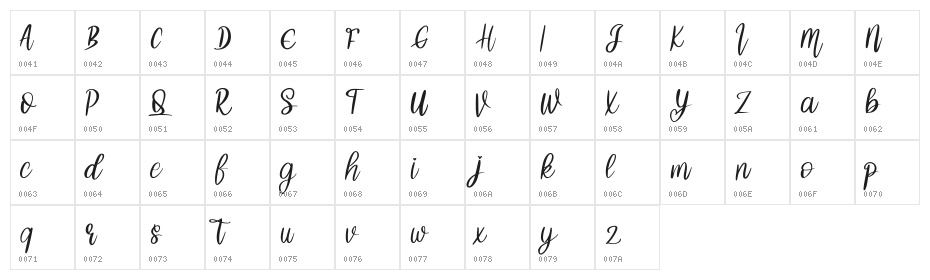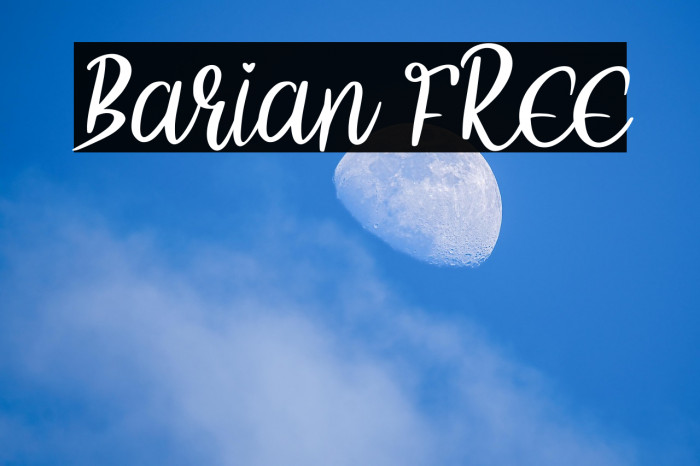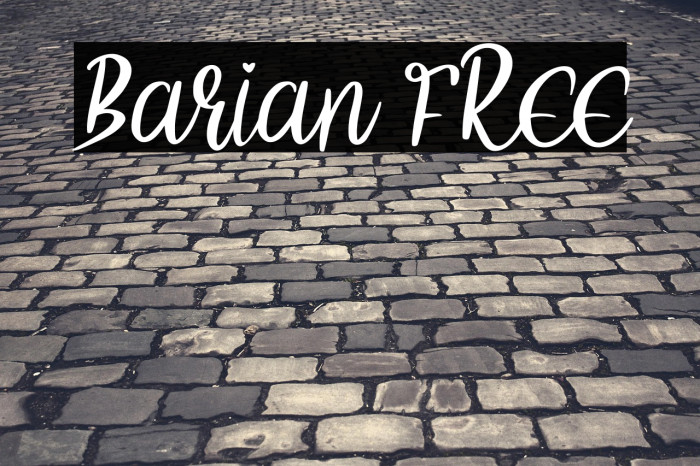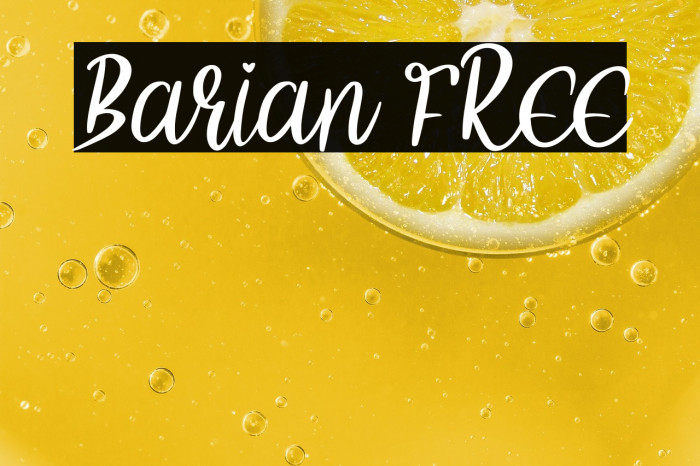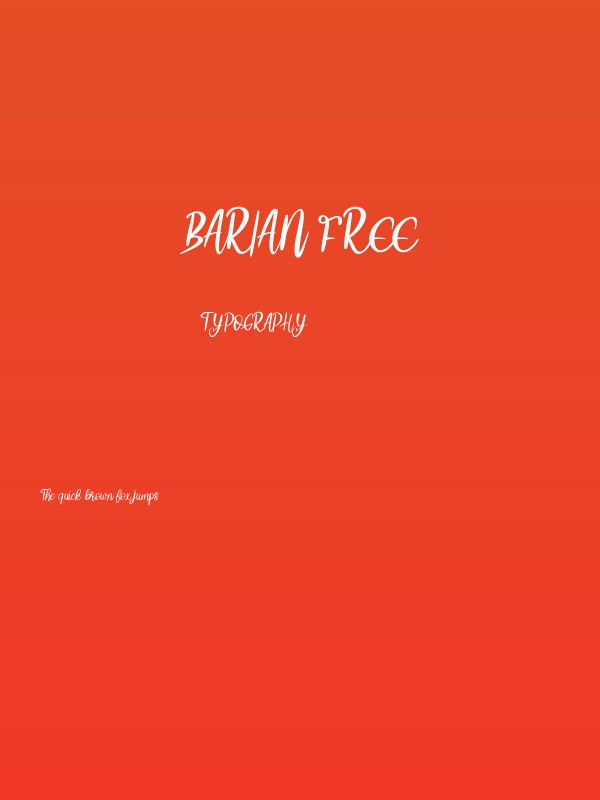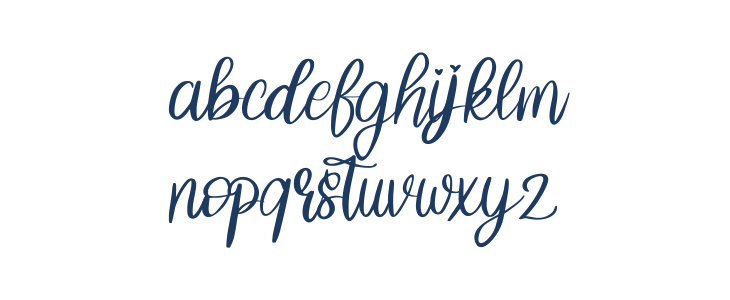
Barian FREE Font
Barian FREE Description
This font features a dynamic and flowing script style, characterized by its elegant and cursive letterforms. The uppercase letters are bold and expressive, with sweeping curves and a sense of movement that adds a touch of sophistication. The lowercase letters maintain a consistent flow, complementing the uppercase with their graceful loops and connections. The numbers and special characters are designed to match the overall aesthetic, ensuring a cohesive look across all text. This font is ideal for projects that require a personal and artistic touch, such as invitations, branding, and decorative designs.
| Proposed Projects | Ideal for invitations, branding, decorative designs, and artistic projects. |